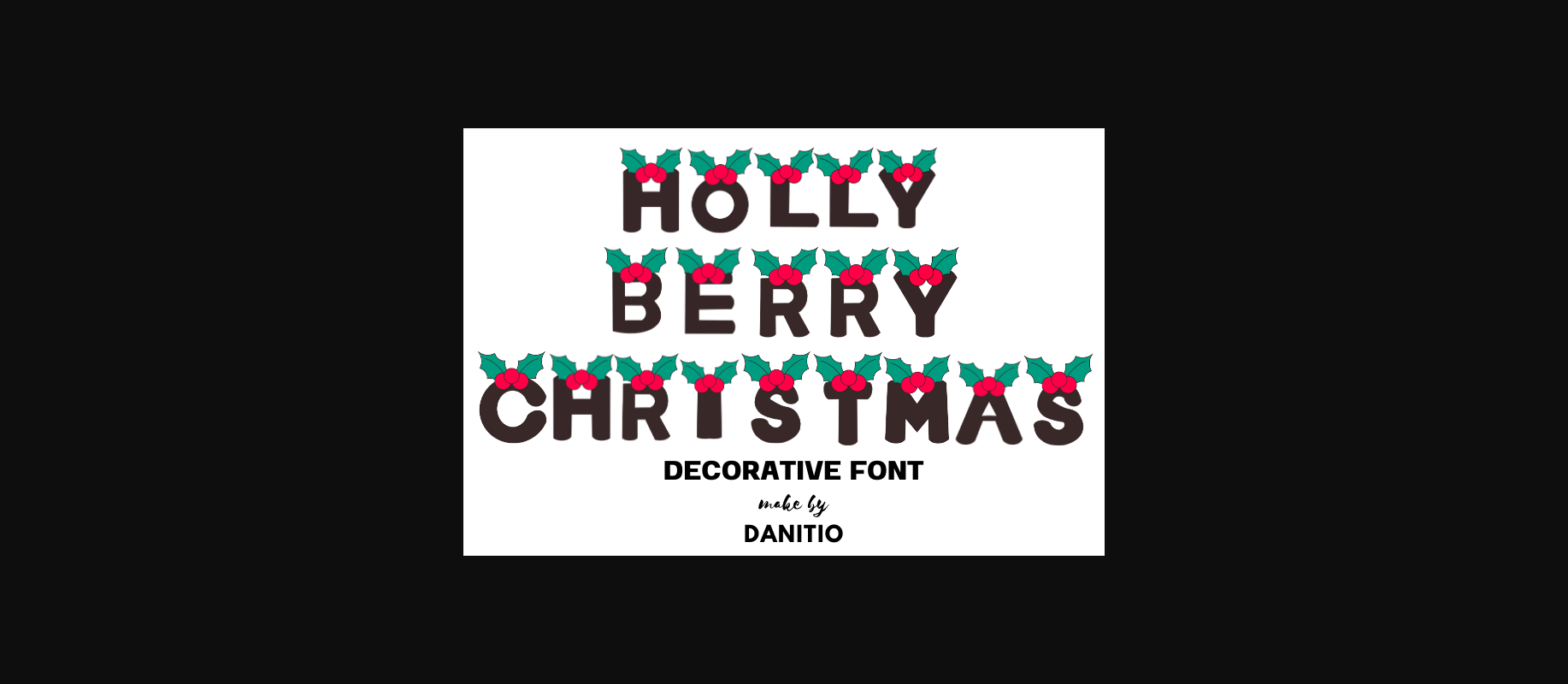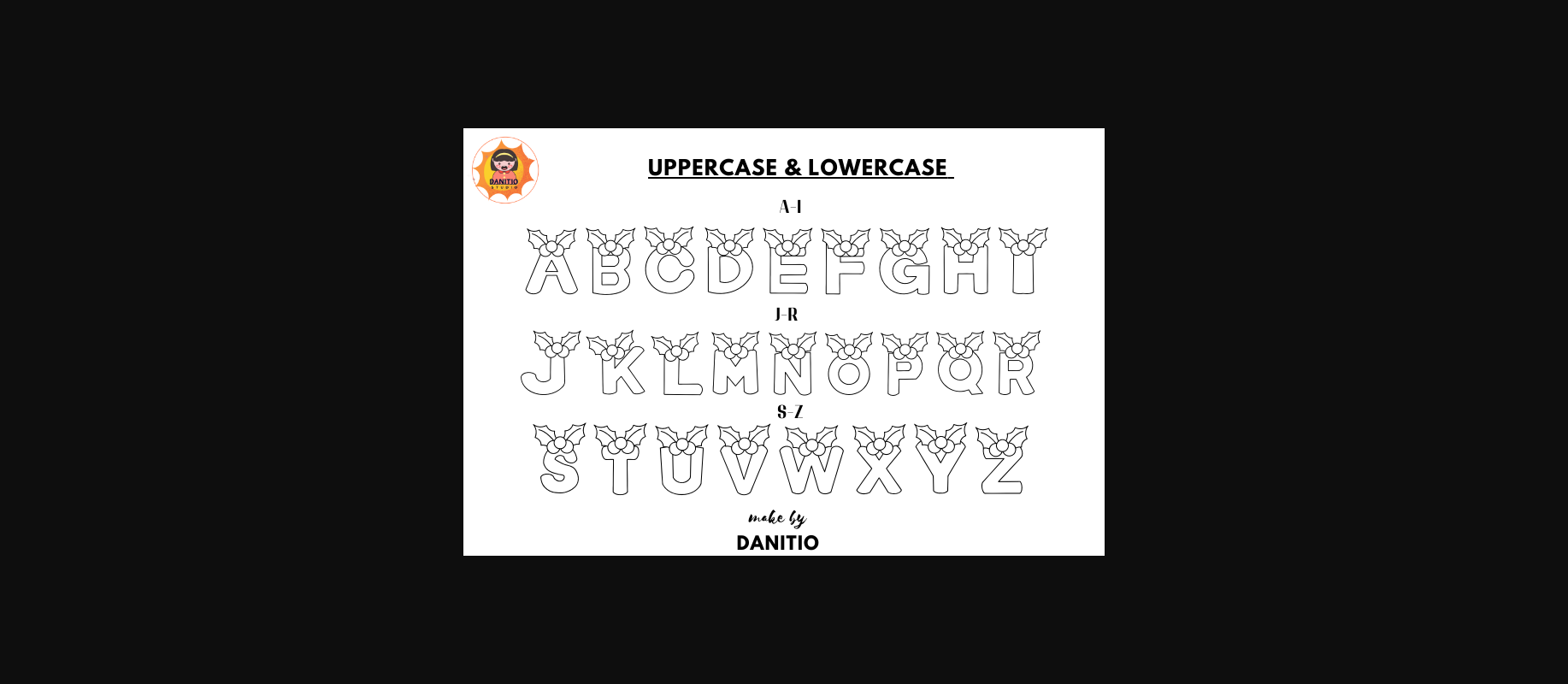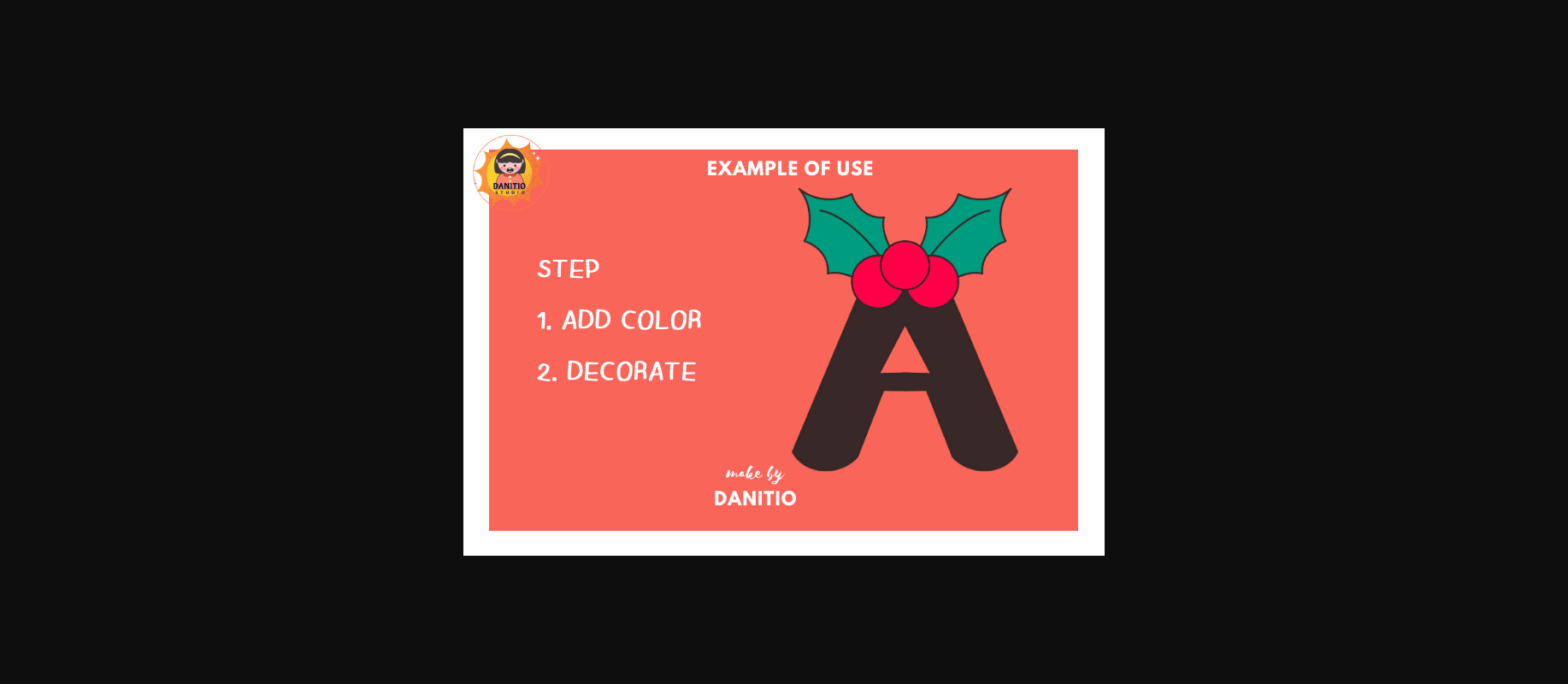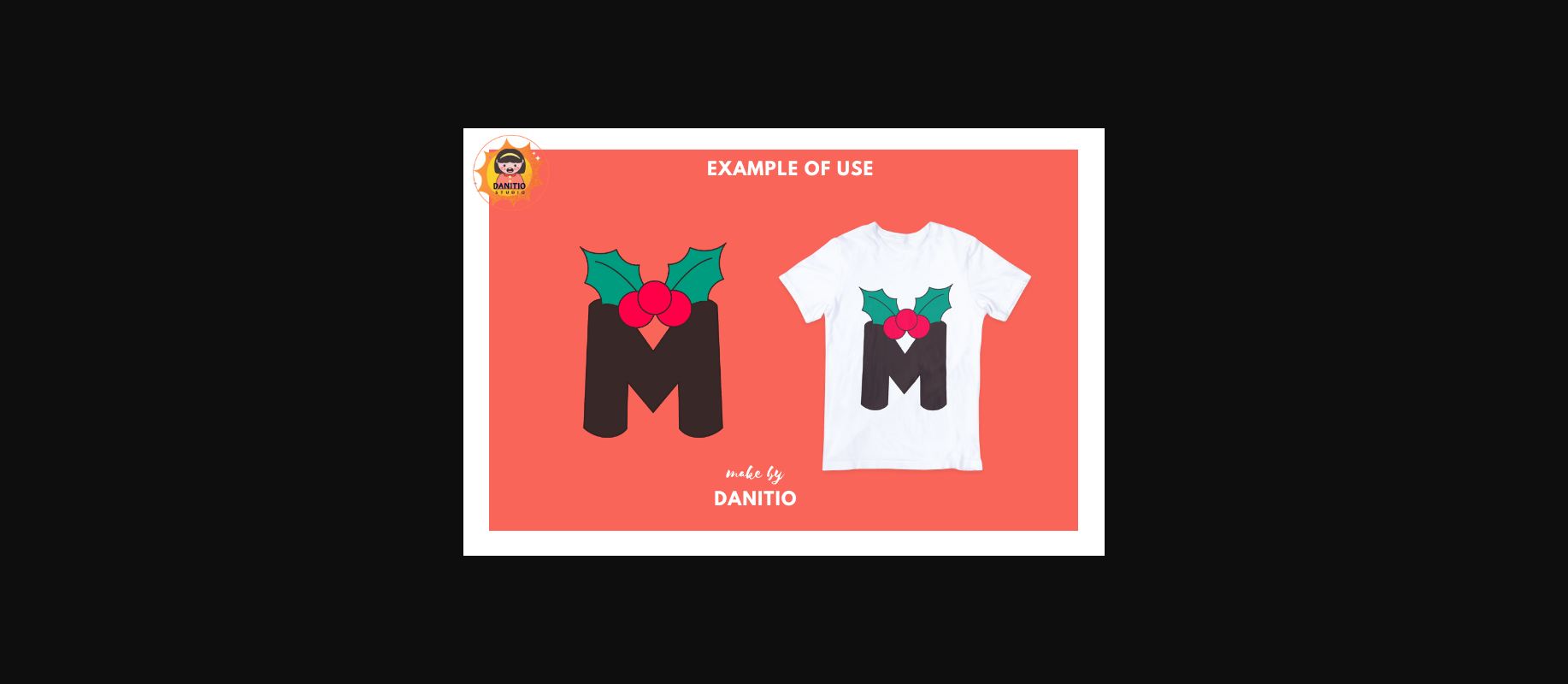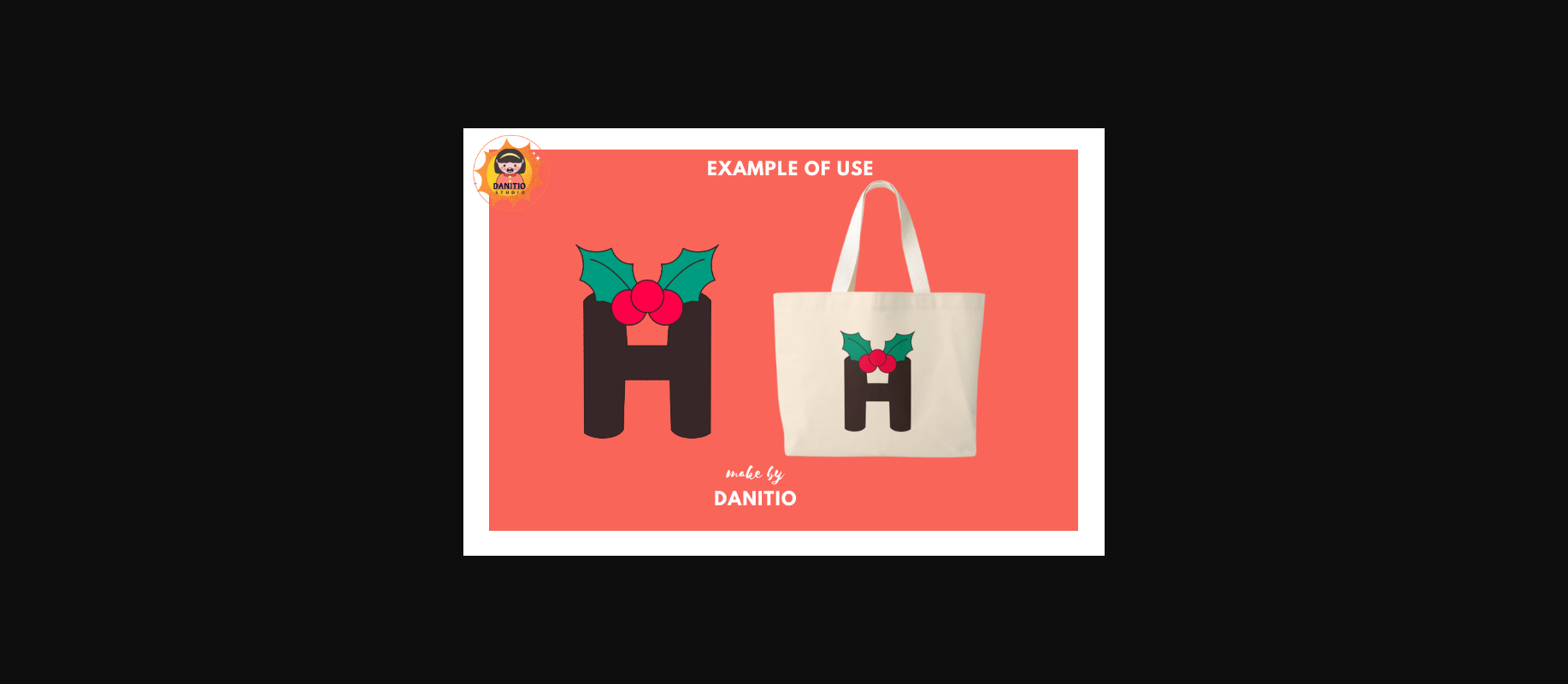
Holly Berry Christmas Font
About Holly Berry Christmas Font
Holly Berry Christmas font is decorated with various cute bouquets of holly. You can give your Christmas-themed project a fun and quirky atmosphere. Including special occasions such as birthdays or New Year’s Day. Perfect for Christmas or any other fun and entertaining festival. Spread the joy of the season with this font. And let your creativity shine during this fun time of the year.